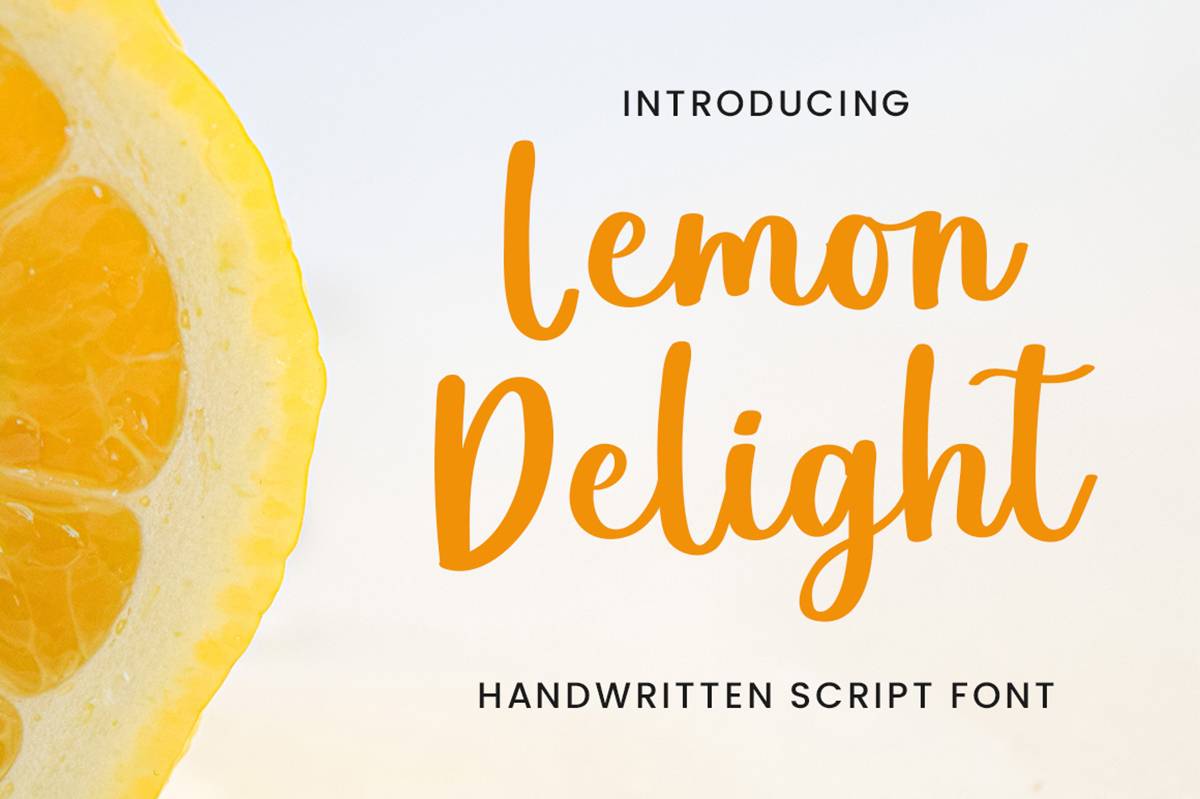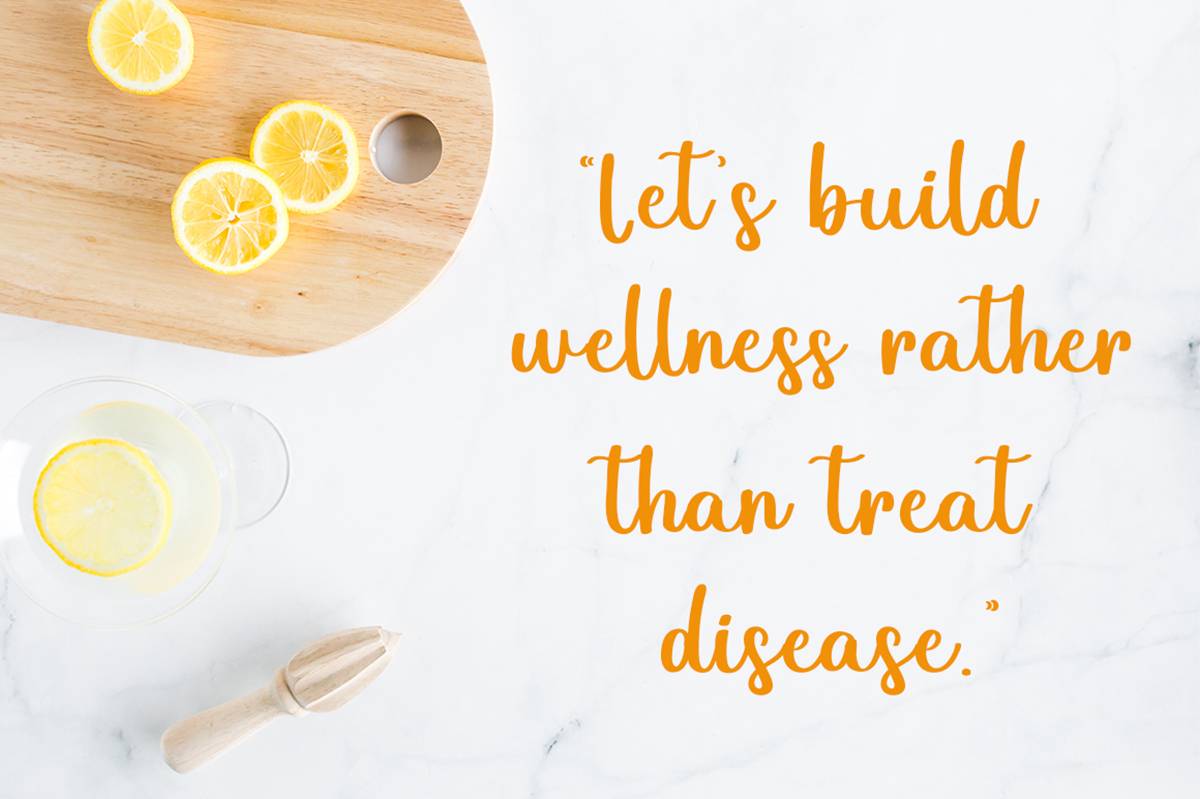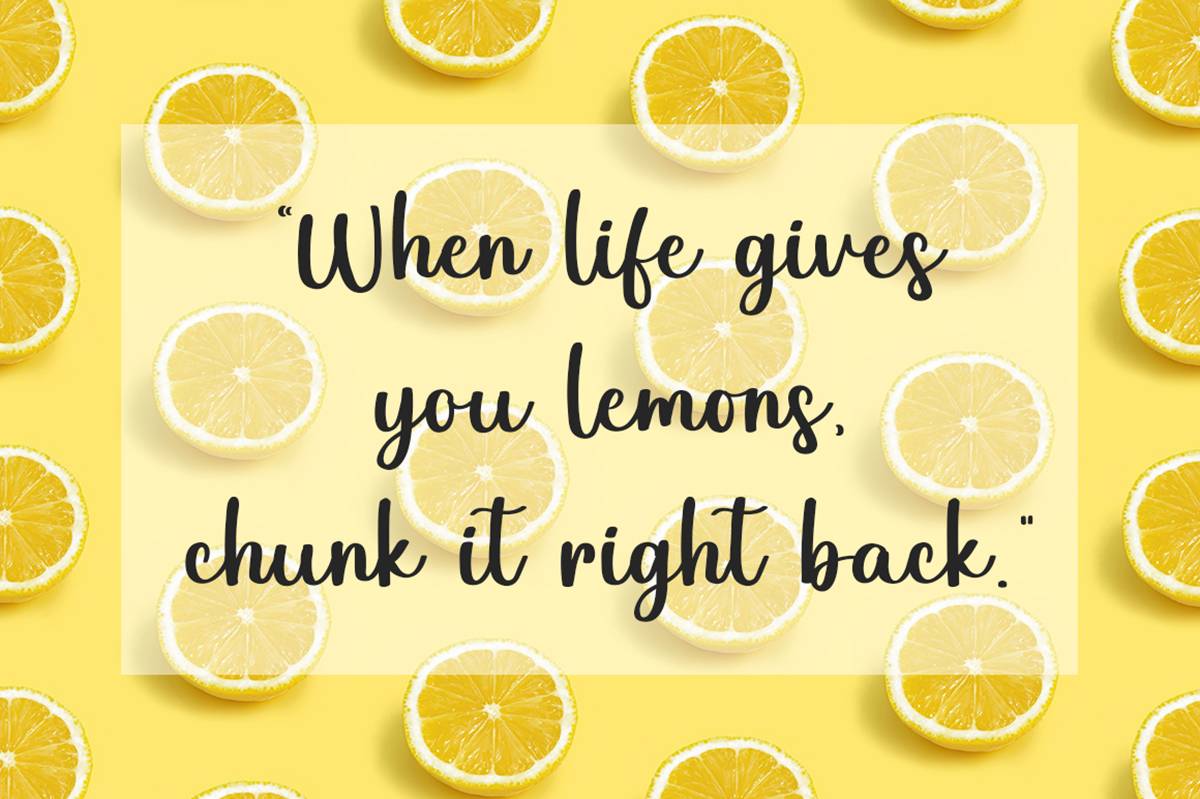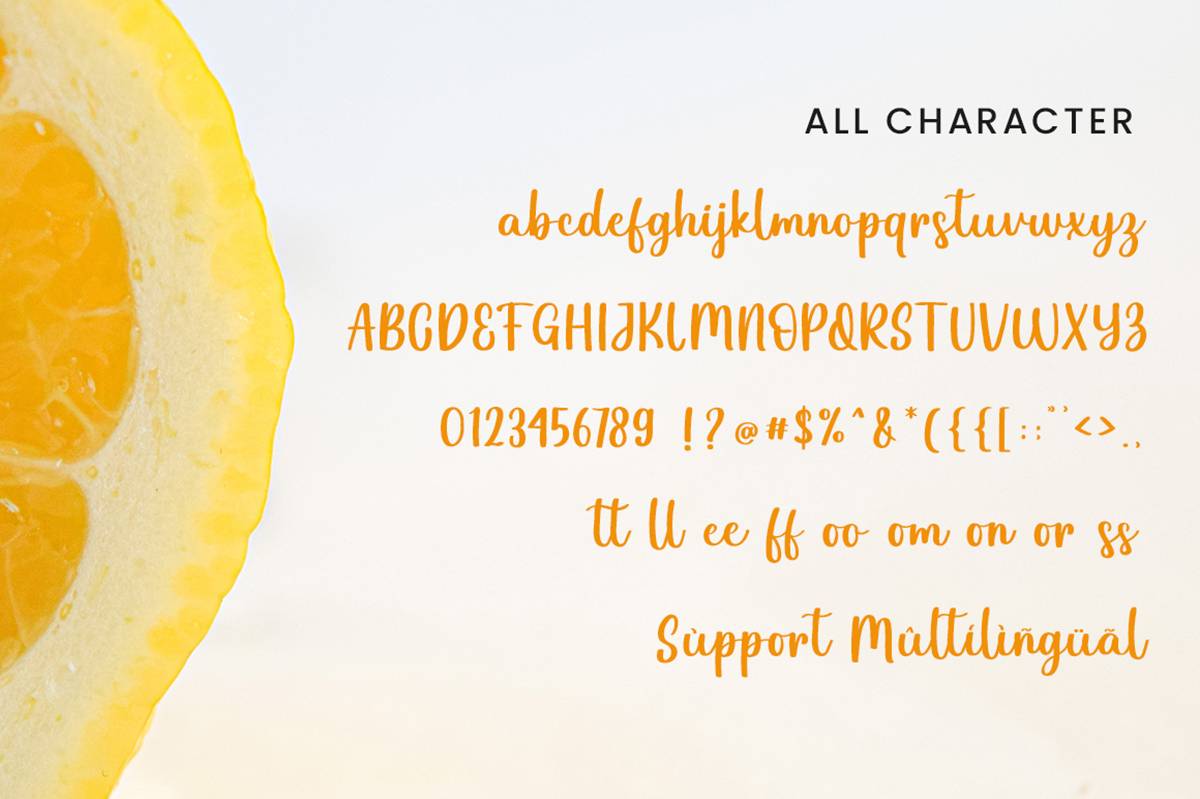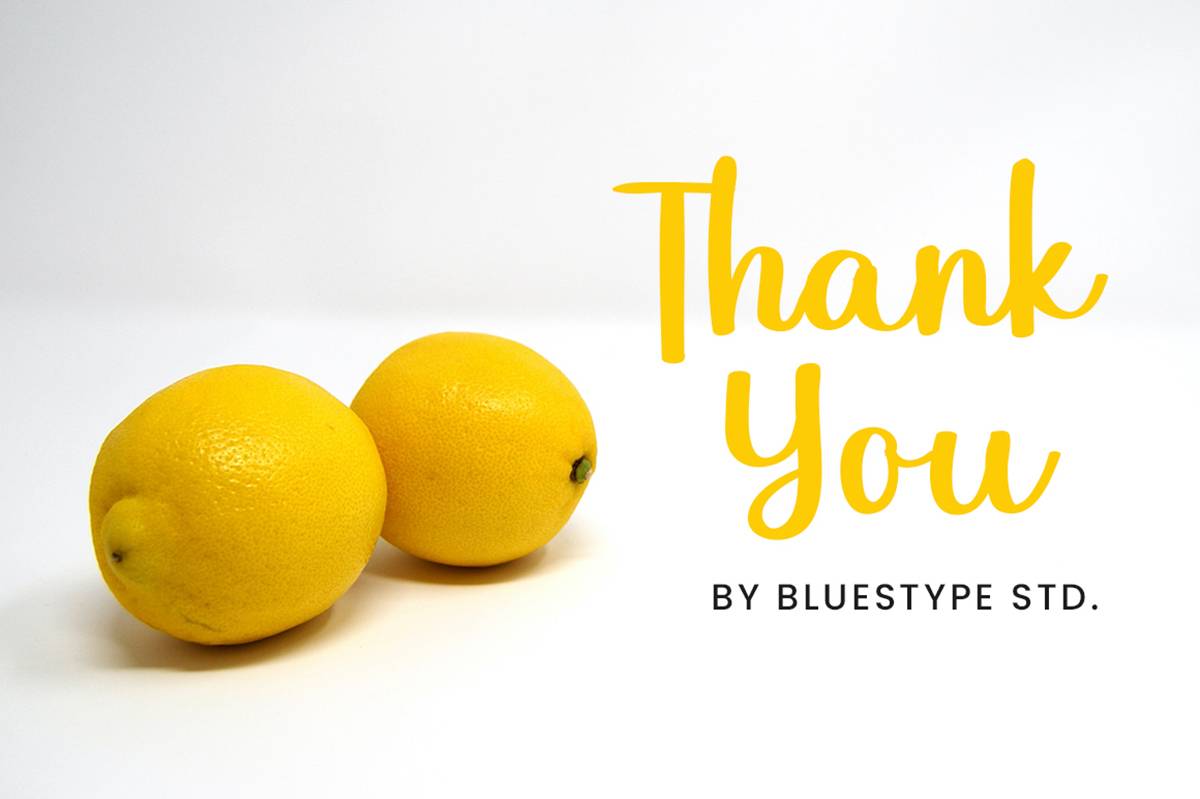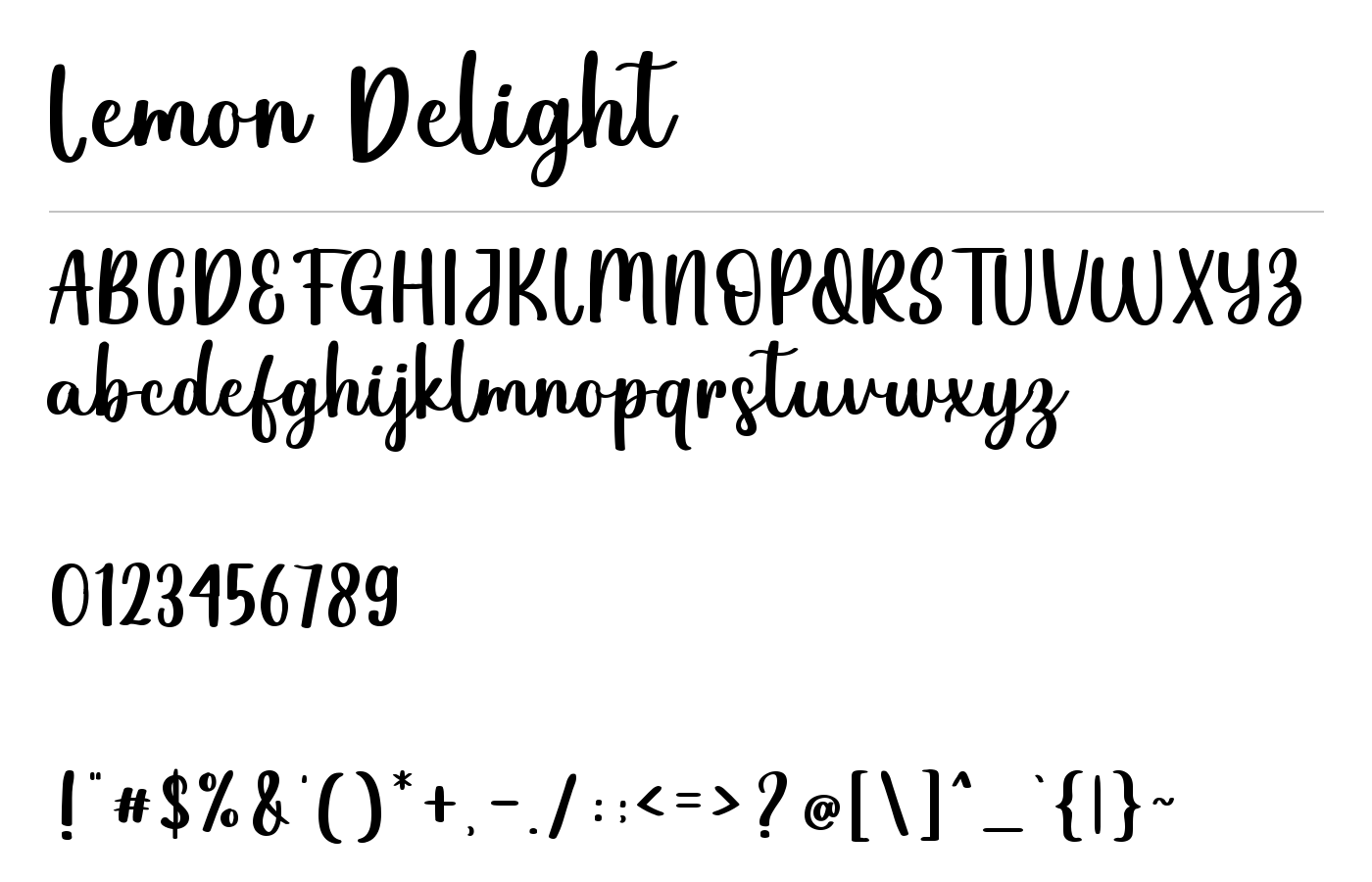
Lemon Delight is a playful and charming handwritten script font with a casual, friendly feel. Its moderately thick strokes and smooth curves give it a warm, approachable personality, making it perfect for creative projects like branding, invitations, and packaging that aim to convey a cheerful and personalized touch. This font works wonderfully for headlines and logos where a natural, handwritten style adds character and energy.
Lemon Delight Font
About Lemon Delight Font
| Font family | Lemon Delight Font |